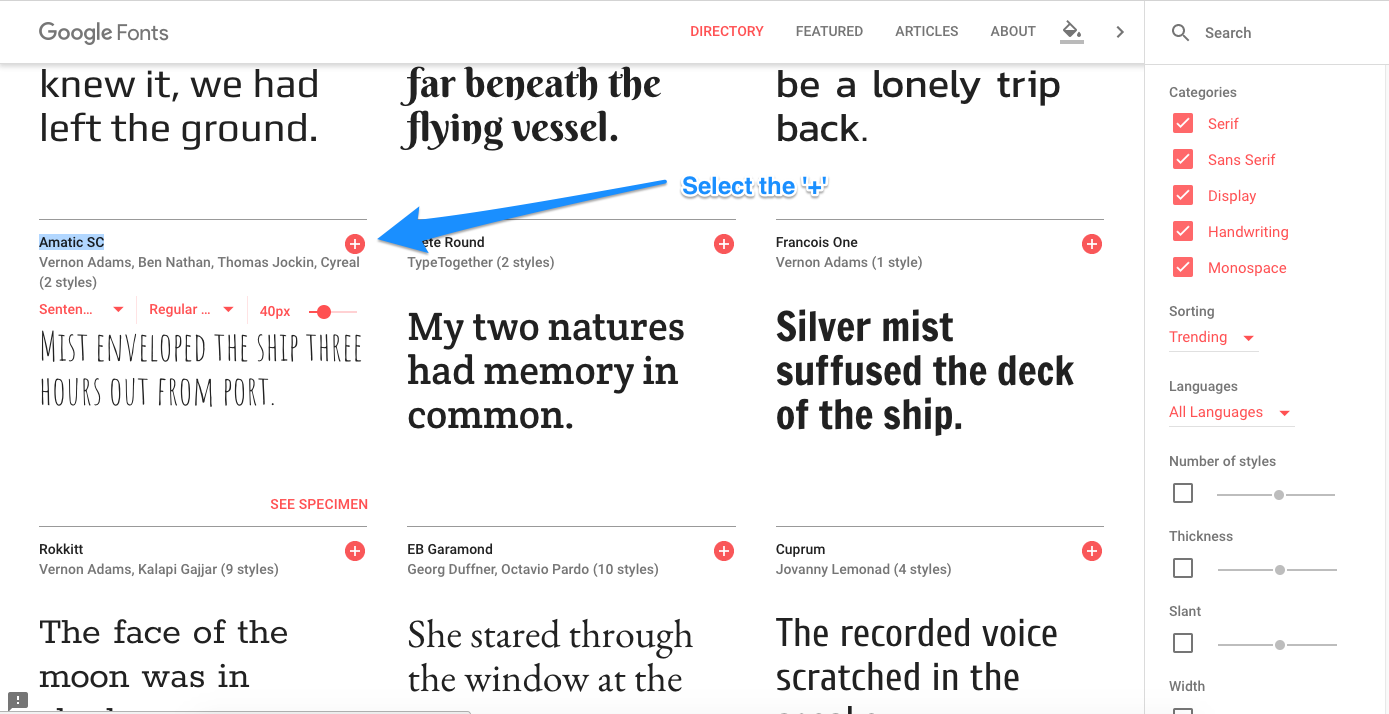
Google Fonts That Go Together
If you dont want something boring or something crazy its a good middle ground that looks great in both a headline and body copy.
Google fonts that go together. Crimson text is a straightforward font with strong serifs but little to no differentiation between the thicks and thins. You can copy and paste your own content in to see what it looks like with these font combinations. Open sans and roboto.
Amatic sc and josefin slab. Making the web more beautiful fast and open through great typography. Playfair display and montserrat.
Alegreya roboto condensed roboto. The paired fonts can be downloaded as zip files which is handy in case you want to use the fonts with your powerpoint presentation on the local computer. 10 useful google font combinations for your next site.
The header of this screenshot is open sans semi bold. The recent relaunch of google fonts prompted me to revisit their library with the hopes of uncovering some new and interesting typeface pairings. Allerta is a moderately bold sans serif with a personality.
These are my five favorites that i discovered. Font pair fontpairco another well designed resources for finding google fonts that go well together. The paragraph below it is roboto regular.
So i combed through googles vast library and tested hundreds of font combinations from their most famous and top fonts like the roboto font railway font montserrat font lato font oswald font lobster font and more to more obscure funky ones you may have never even seen before this post. Amatic sc josefin sans. This collection focuses on newer and less commonly used typefaces rather than google fonts staples like open sans and merriweathereach of these five pairings includes a headline face that should be.
Simply click anywhere in the paragraph or heading text and start typing. Together they make for a combination that is fun easy to read and pragmatic. Fira sans merriweather.
Pt sans narrow pt sans. All of this text is editable. The best google font pairings for 2020.